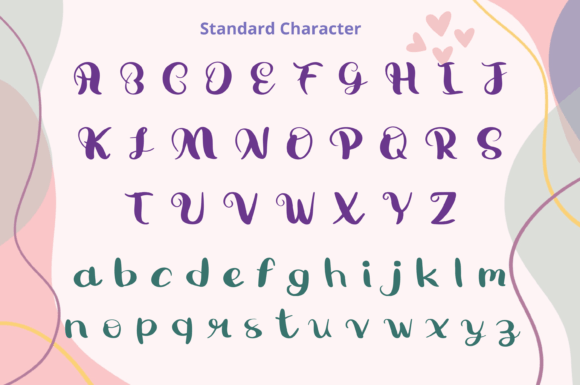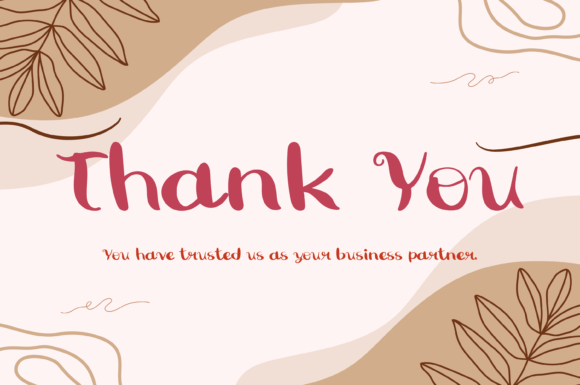
Find Your Unique Touch with Good Darling Font
Have you ever stared at a blank page, trying to bring a creative idea to life, only to feel like something’s missing? You envision a design that’s both elegant and playful, yet can’t seem to put your finger on the perfect font to match. Well, we’re here to help you break that creative block! Introducing the enchanting Good Darling Font, a whimsical and clean handwritten font that’s sure to add a touch of magic to your next project.
With its versatility and charm, the Good Darling Font is the perfect addition to any design. Whether you’re a seasoned pro or just starting out, this font is valuable for designers of all levels. Its effortless blend of elegance and playfulness makes it easy to incorporate into a wide range of projects, from greeting cards to marketing materials.
Good Darling Font Key Features
- Unique Characteristics: The Good Darling Font features a charming, handwritten style with subtle flair and whimsy, perfect for adding a personal touch to designs.
Good Darling Font Review
I recently had the chance to work with the Good Darling Font and I must say, it’s a delightful addition to any design project. Here’s what I think:
- Unique Character**: The Good Darling Font has a distinct personality that sets it apart from more generic fonts. It’s perfect for projects that require a touch of whimsy.
- Legibility**: Despite its quirky nature, the font is surprisingly easy to read, making it a great choice for body text.
- Customization Options**: The font family offers a range of styles and weights, giving designers plenty of flexibility when it comes to finding the perfect look.
- Limited Scalability**: While the font looks great at larger sizes, it can become pixelated and distorted at smaller sizes.
- Not Ideal for Large Blocks of Text**: Due to its quirky nature, the font can become overwhelming when used for large blocks of text.
Overall, I’d give the Good Darling Font 4 out of 5 stars. It’s a great choice for designers looking to add a touch of personality to their projects, but it may not be the best fit for every design need.
The Good Darling Font is perfect for creating a whimsical and feminine touch in your designs. Some common use cases include:
- Baby shower invitations and decor
- Wedding stationery and decor
- Children’s product packaging
Is the Good Darling Font suitable for digital use?
Yes, the Good Darling Font is designed for digital use and is optimized for screen rendering. It includes features such as hinting and kerning to ensure clear and legible text at various font sizes and resolutions. The font is also designed to be scalable, making it suitable for use in a wide range of digital applications, from web design to mobile apps.